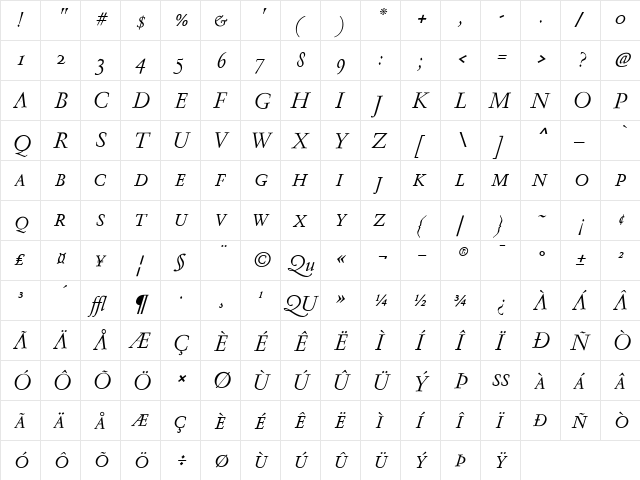
NicolasJensonSG Regular Font Preview
NicolasJensonSG Regular
NicolasJensonSG Regular Font Details
| Foundry | Spiece Graphics |
Design Context for NicolasJensonSG Typeface
NicolasJensonSG is a composed and adaptable typeface that performs quietly and consistently across a wide range of design contexts.